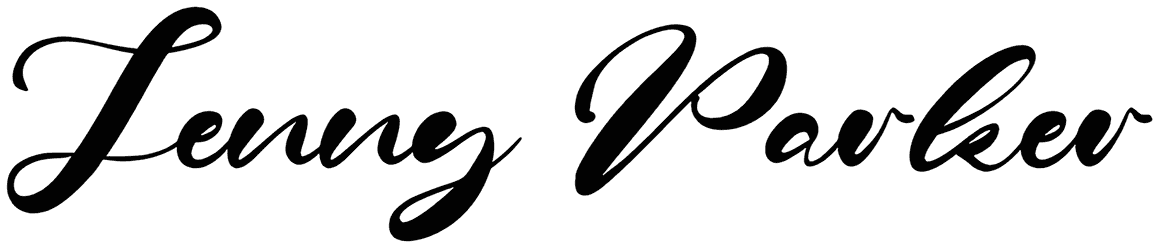
Jenny Parker Font
It doesn’t matter whether you are working on a modern or classic design; Jenny Parker can handle any design. This romantic font, with its silky and appealing outward appearance, can reflect a salient vibe. With an almost full backup of characters, it will be suitable for various innovative layouts, namely branding, magazines, fashion ads, and the like.